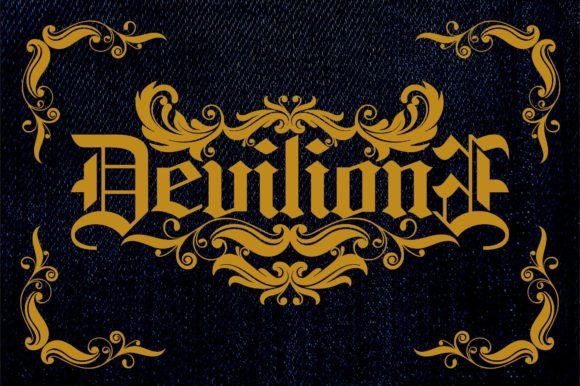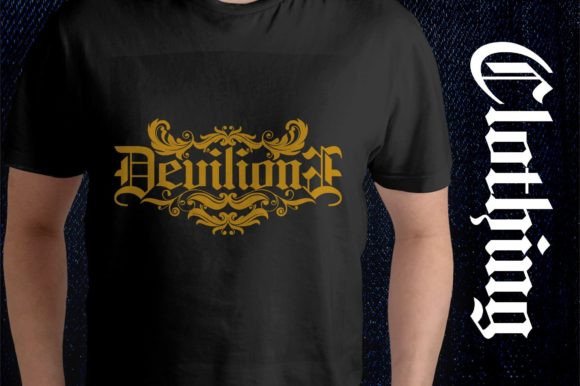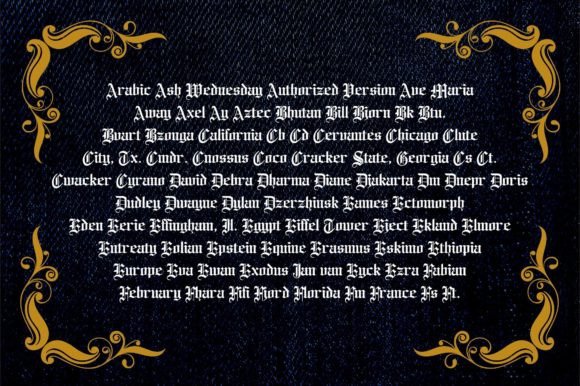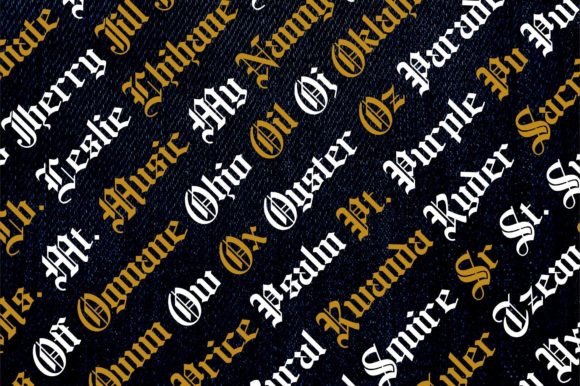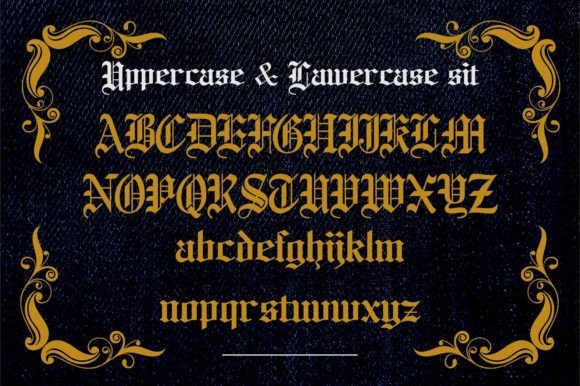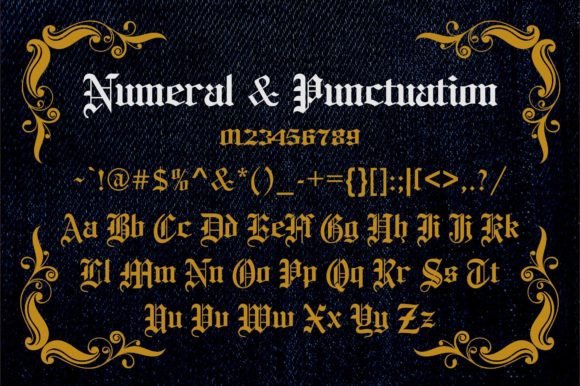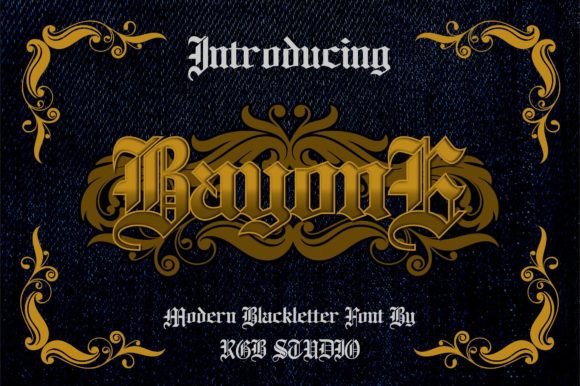
Introducing Bayone Font: Elevate Your Designs with Bold Elegance
Bayone Font is a stunning blackletter font that exudes confidence and sophistication. Its bold, distinct, and elegant design makes it the perfect addition to any project that requires a touch of luxury and refinement. With Bayone Font, you can transform your ideas into true works of art that leave a lasting impression.
The Power of Blackletter Fonts
Blackletter fonts have been a staple of design for centuries, evoking a sense of tradition and heritage. These fonts are characterized by their dramatic flourishes and bold lines, which add a level of sophistication to any design. Bayone Font takes the classic blackletter style and modernizes it with a unique and elegant twist, making it perfect for designers and crafters looking to add a touch of elegance to their work.
What Makes Bayone Font Stand Out
So, what sets Bayone Font apart from other blackletter fonts on the market? Here are just a few reasons why Bayone Font is a cut above the rest:
• Bold and Distinct Design: Bayone Font features a bold and distinct design that commands attention. Its dramatic flourishes and bold lines make it perfect for headlines, titles, and other design elements that need to make a statement.
• Elegant and Refined: Despite its bold design, Bayone Font is also surprisingly elegant and refined. Its smooth lines and curves add a touch of sophistication to any design, making it perfect for luxury brands, high-end products, and other applications where elegance is key.
• Versatile: Bayone Font is incredibly versatile, making it suitable for a wide range of design applications. Use it for posters, flyers, brochures, business cards, and more.
How to Use Bayone Font in Your Designs
Bayone Font is easy to use and can be incorporated into your designs in a variety of ways. Here are a few ideas to get you started:
• Headlines and Titles: Use Bayone Font to create bold and eye-catching headlines and titles. Its dramatic flourishes and bold lines make it perfect for grabbing attention and drawing the reader in.
• Logos and Branding: Bayone Font is also well-suited for use in logos and branding. Its elegant and refined design makes it perfect for luxury brands and high-end products.
• Posters and Flyers: Add a touch of elegance to your posters and flyers with Bayone Font. Its bold design and smooth lines make it perfect for creating eye-catching and effective marketing materials.
Tips for Getting the Most Out of Bayone Font
Here are a few tips for getting the most out of Bayone Font:
• Use it Sparingly: Bayone Font is a bold and attention-grabbing font, so use it sparingly to avoid overwhelming the reader. Use it for headlines and titles, and pair it with a simpler font for body text.
• Experiment with Colors: Bayone Font looks great in a variety of colors, so don’t be afraid to experiment and find the perfect hue for your design.
• Pair it with Other Fonts: Bayone Font pairs well with a variety of other fonts, so don’t be afraid to experiment and find the perfect combination for your design.
Bayone Font is a bold, distinct, and elegant blackletter font that is sure to elevate your designs to the next level. Its unique and refined design makes it perfect for a wide range of applications, from luxury brands and high-end products to posters and flyers. With its versatility, elegance, and bold design, Bayone Font is a must-have for any designer or crafter looking to add a touch of sophistication to their work.